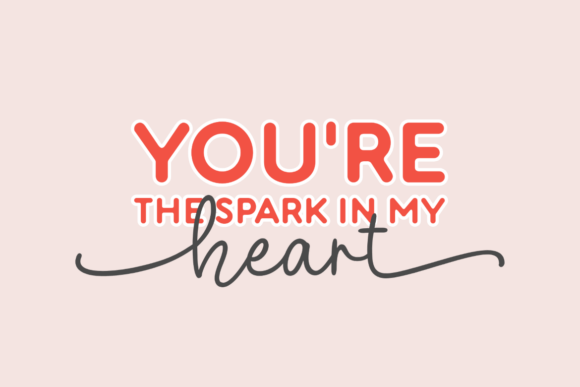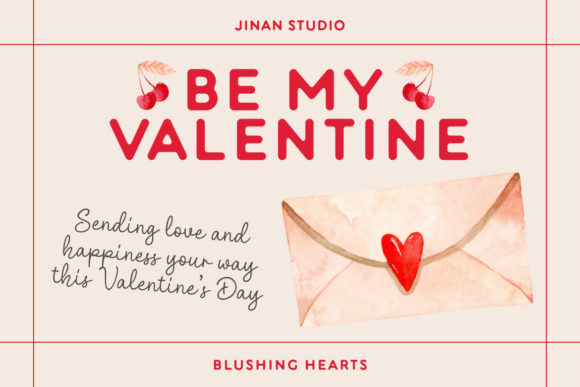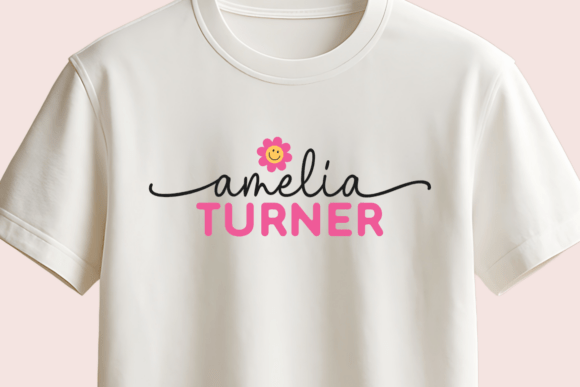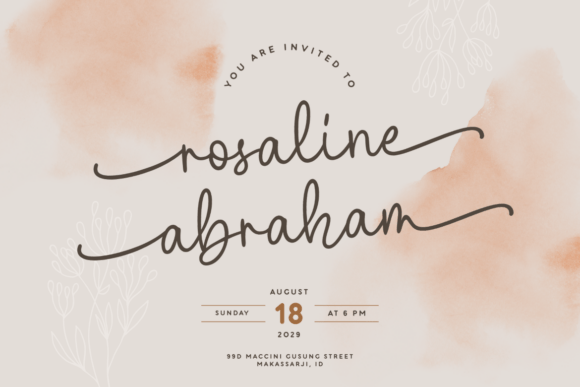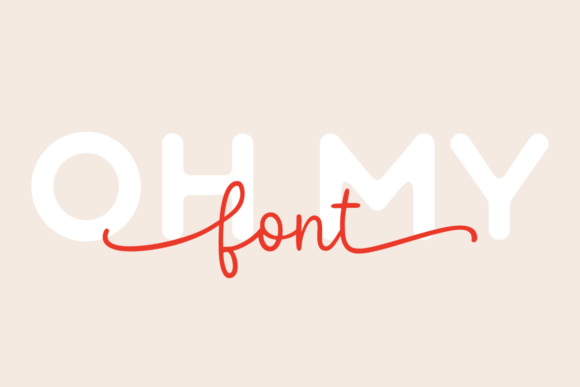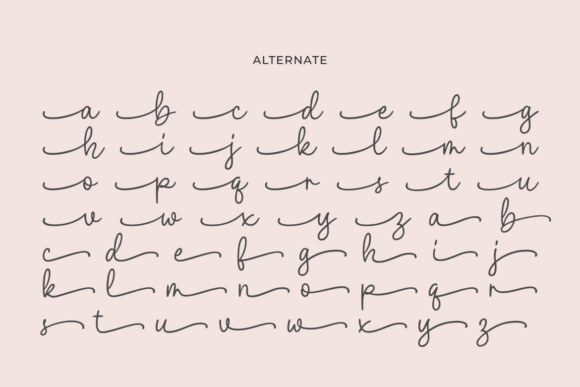
Introducing Blushing Hearts Duo Font: The Perfect Valentine’s Day Typography
Are you looking for a font duo that exudes love, warmth, and sweetness? Look no further than Blushing Hearts Duo Font, a charming and romantic typography designed specifically for Valentine’s Day projects and love-themed designs. This versatile font duo combines a lovely handwritten script with a bold, rounded display font, perfect for creating eye-catching and adorable designs.
A Perfect Pair: Handwritten Script and Bold Display Font
Blushing Hearts Duo Font features two distinct fonts that work beautifully together to create a unique and captivating visual identity. The handwritten script font adds a natural, personal touch to your designs, while the bold display font gives a playful and lovable impression. This perfect pair is ideal for designers and crafters seeking a cute Valentine font, romantic typography, or a charming handwritten font combination.
With Blushing Hearts Duo Font, the design possibilities are endless. This font duo is perfect for a wide range of projects, including:
- Valentine’s Day designs: Create adorable Valentine’s Day cards, posters, and social media graphics that will capture the hearts of your audience.
- Wedding projects: Use Blushing Hearts Duo Font to design beautiful wedding invitations, save-the-date cards, and wedding stationery.
- Branding and packaging: Add a touch of love and warmth to your brand’s packaging and marketing materials.
- Greeting cards and stickers: Create lovely greeting cards, stickers, and other paper crafts that will make your loved ones feel special.
- Social media content: Use Blushing Hearts Duo Font to create engaging and eye-catching social media graphics, quotes, and posts.
- Cricut projects: Cut out adorable shapes and designs with Blushing Hearts Duo Font, perfect for DIY enthusiasts and Cricut lovers.
- Apparel and merchandise: Design cute and romantic apparel, mugs, and other merchandise that will make perfect gifts or promotional items.
Key Features of Blushing Hearts Duo Font
Here are some of the key features that make Blushing Hearts Duo Font a must-have for designers and crafters:
- PUA encoded glyphs and swashes: Easily access and use all glyphs and swashes in any design software, making it simple to create stunning designs.
- Handwritten script font: Adds a natural, personal touch to your designs.
- Bold display font: Gives a playful and lovable impression, perfect for headlines and titles.
- Versatile and flexible: Suitable for a wide range of projects, from digital designs to print materials.
Why Choose Blushing Hearts Duo Font?
Blushing Hearts Duo Font is the perfect choice for designers and crafters looking for a cute Valentine font, romantic typography, or a charming handwritten font combination. With its unique and captivating design, this font duo will help you:
- Stand out from the crowd: Create designs that are truly unique and eye-catching.
- Convey love and warmth: Perfect for Valentine’s Day designs, wedding projects, and love-themed designs.
- Save time and effort: Easily create stunning designs with the PUA encoded glyphs and swashes.
Blushing Hearts Duo Font is a must-have for designers and crafters seeking a charming and romantic typography for their Valentine’s Day projects and love-themed designs. With its perfect pair of handwritten script and bold display fonts, this font duo offers endless design possibilities and is perfect for a wide range of projects. Spread love in every design with Blushing Hearts Font Duo and make your designs truly special and eye-catching.